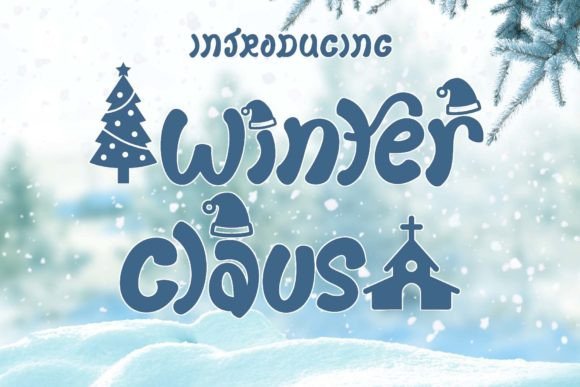
Behold! Enter the enchanting realm of Winter Claus Font, where Christmas cheer dances upon each letterform. This extraordinary display font is adorned with the festive spirit, featuring whimsical Christmas hats, stately Christmas trees, and hallowed churches. Unleash the magic of winter within your designs!
Winter Claus Font is a true masterpiece, meticulously crafted to elevate your Christmas and winter-themed projects to new heights. Its exquisite design captures the essence of the season, inviting warmth, joy, and enchantment into your creations. This font is so much more than a mere collection of characters; it's a gateway to a winter wonderland, where your imagination can run wild.
Picture this: a Christmas card adorned with the graceful curves of Winter Claus Font, conveying heartfelt holiday greetings. Or, envision a festive poster announcing a winter sale, brimming with the charm and excitement of the season. With Winter Claus Font, the possibilities are endless.
But what truly sets Winter Claus Font apart is its versatility. This enchanting font effortlessly adapts to a symphony of design styles, from whimsical and playful to elegant and sophisticated. Whether you're designing a delightful Christmas invitation, a cozy winter brochure, or a captivating social media post, Winter Claus Font has got you covered.